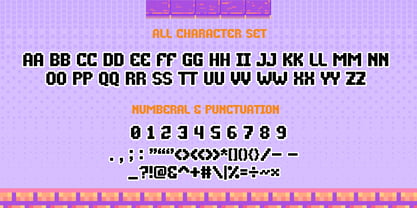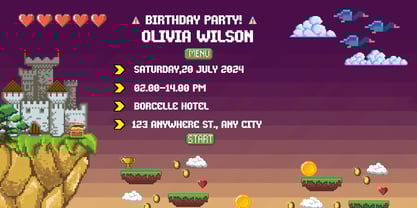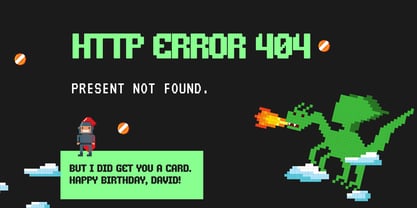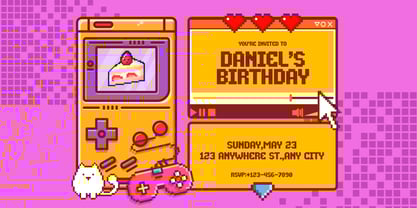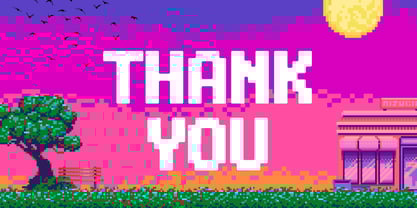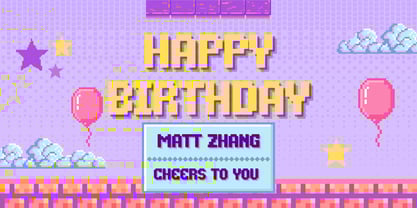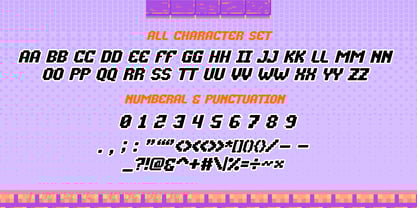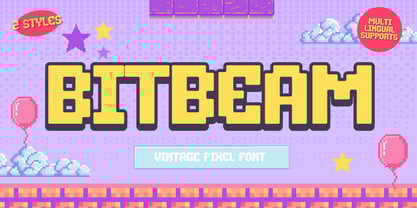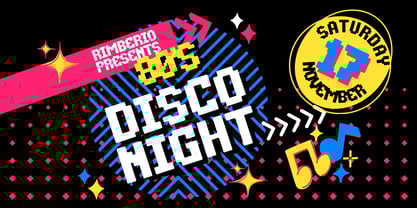
The Bitbeam Font Family was designed by Nattha​ Potchanad​ and published by Brown Cupple Typeface. Bitbeam contains 2 styles and family package options.
Bitbeam is a nostalgic pixel-style display font crafted with a retro video game aesthetic in mind. Designed in a clean pixel grid, it features both Regular and Italic styles, bringing a dynamic and classic 8-bit look to your creative projects.
Each character is carefully aligned and proportioned, delivering a balanced and consistent appearance across the entire typeface. The geometric shapes and monospaced feel give off a sense of order and familiarity, reflecting the structure of vintage arcade typography.
What makes Retro Pixel stand out is its charming imperfections. Slightly uneven lines and subtle shifts in weight emulate the visual quirks of old-school digital screens, giving your text an authentic retro vibe. The italic version adds a playful slant, great for adding emphasis while keeping the pixel style intact.